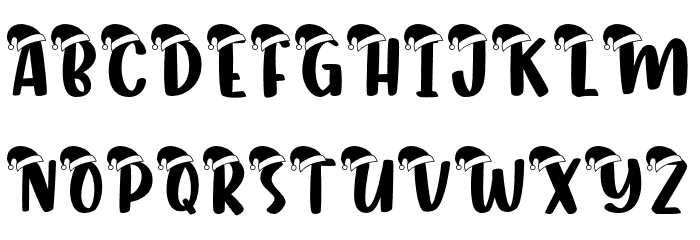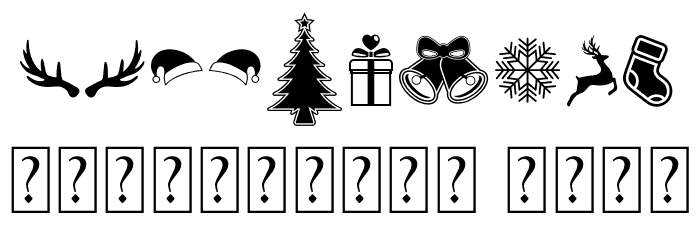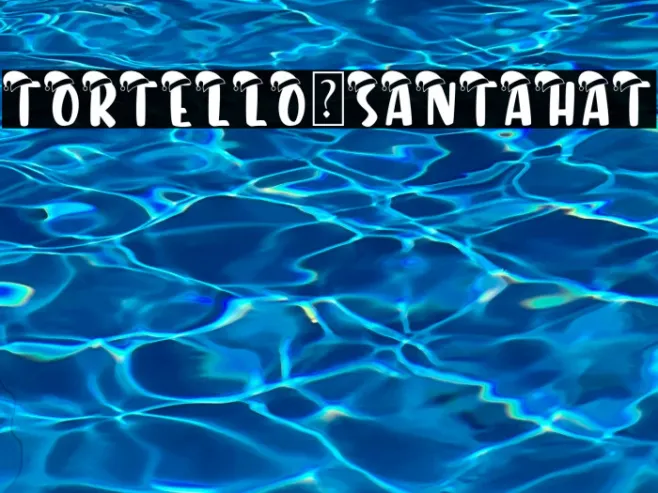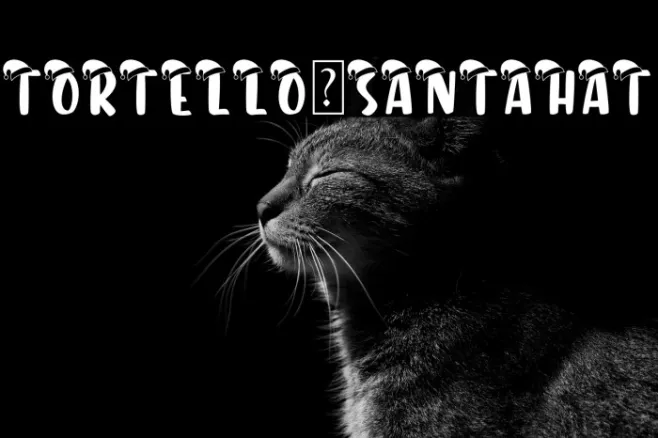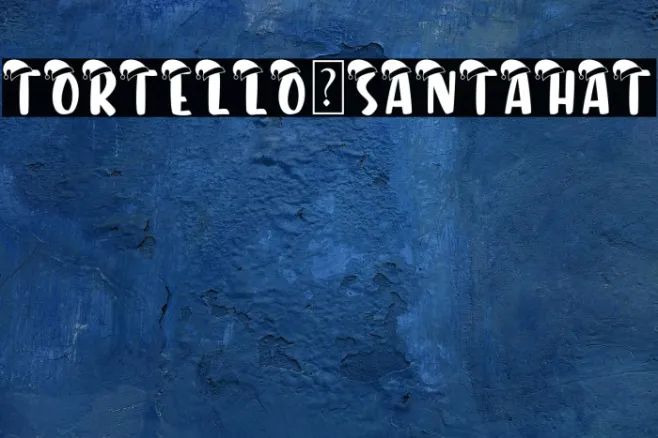
Tortello-SantaHat Font
This festive font features each letter adorned with a playful Santa hat, adding a whimsical and cheerful touch to the characters. The design is bold and eye-catching, perfect for holiday-themed projects. The uppercase and lowercase letters maintain a consistent style, with smooth curves and a slightly playful tilt, enhancing the joyful theme. The font includes a variety of special characters and symbols, such as antlers, Christmas trees, and snowflakes, which complement the holiday spirit. The overall look is decorative and fun, making it ideal for creating engaging and festive designs.
A festive, bold font with Santa hats on each letter, perfect for holiday themes.
- Proposed Projects: Ideal for Christmas cards, holiday banners, festive invitations, and seasonal marketing materials.